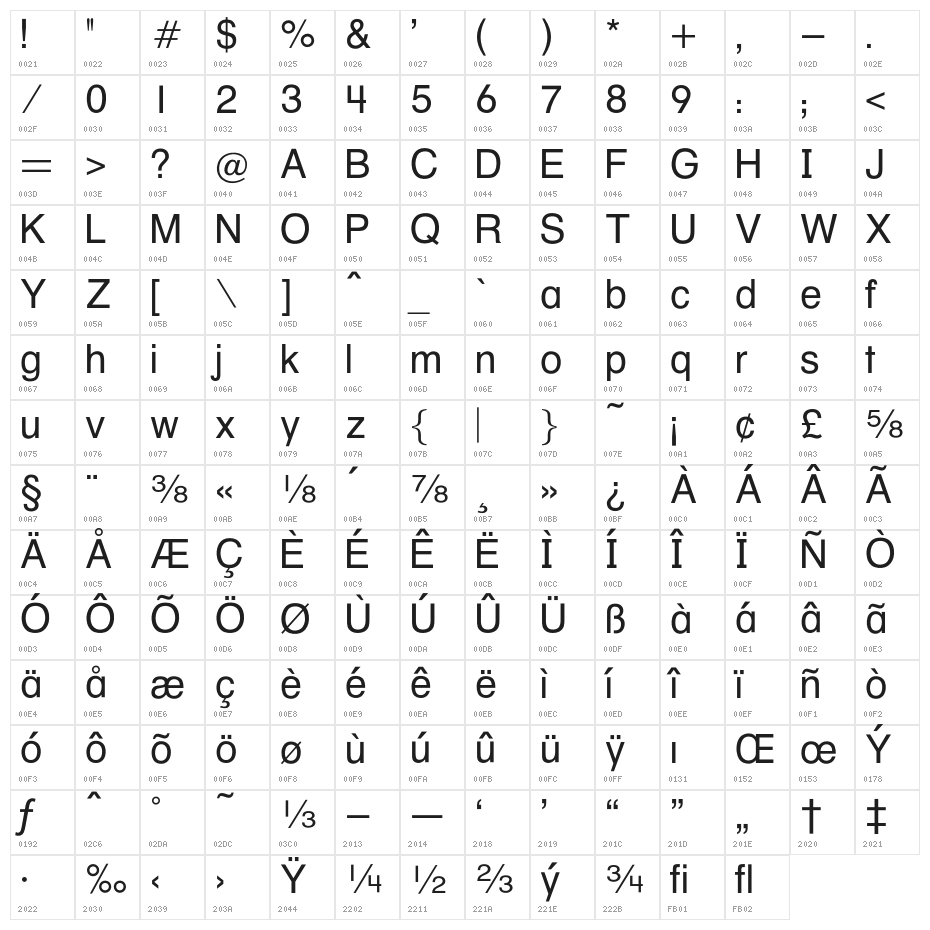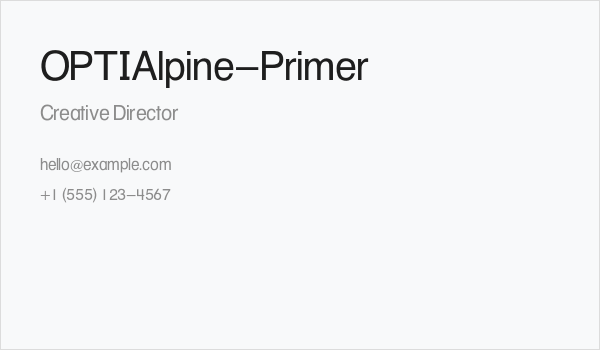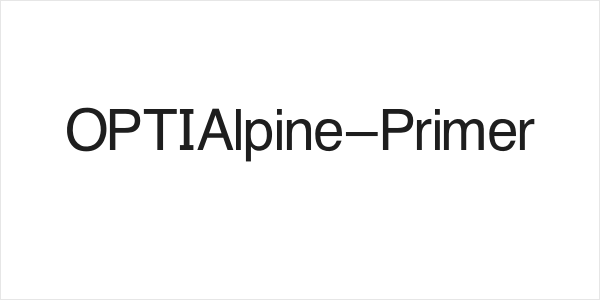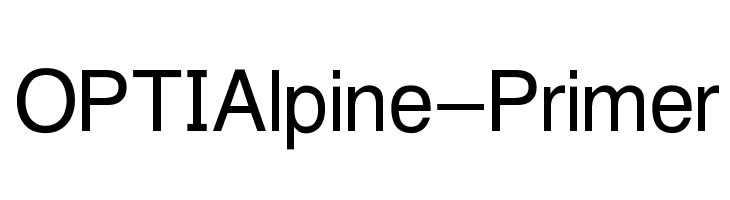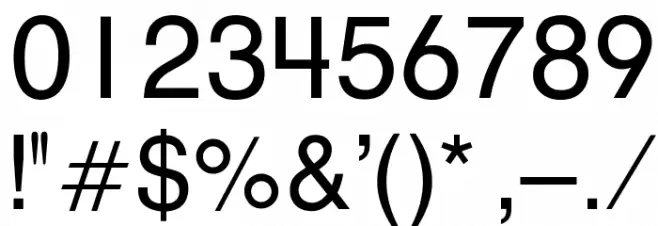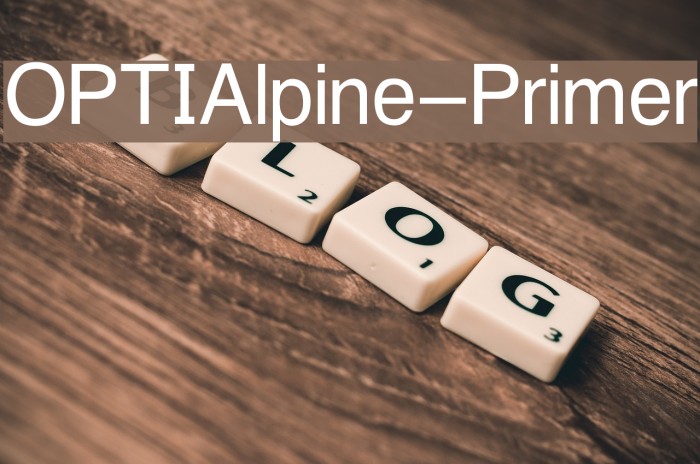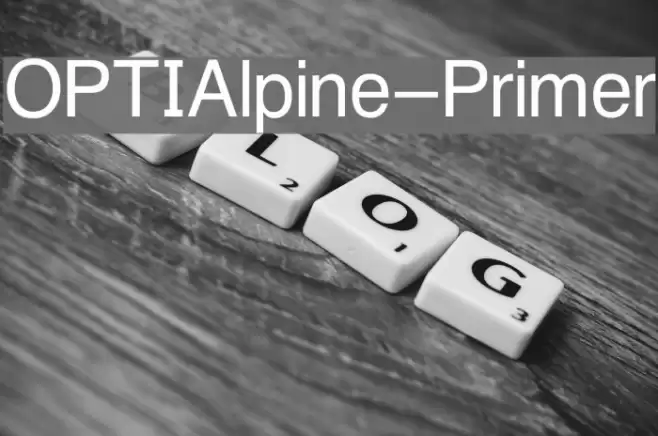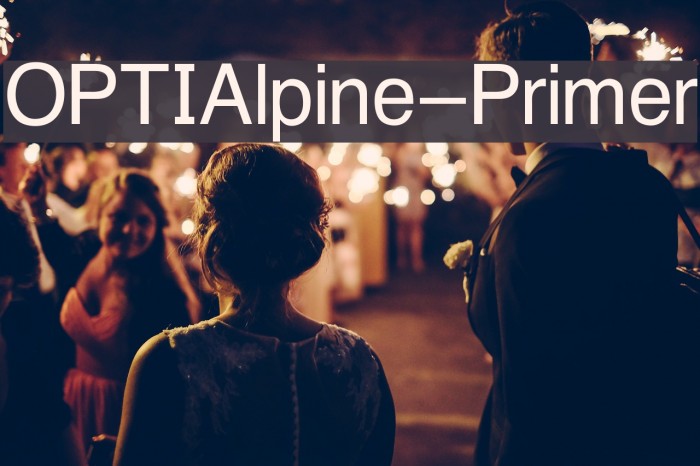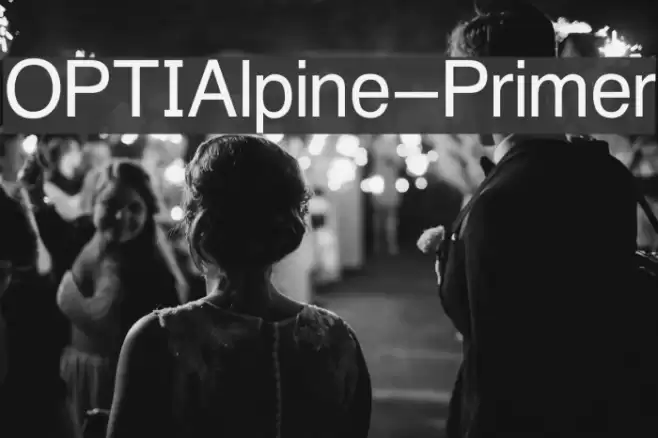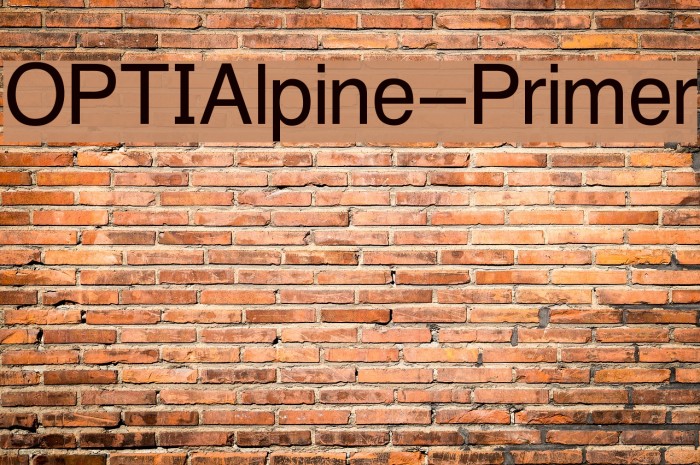
OPTIAlpine-Primer Font
OPTIAlpine-Primer Description
This font presents a clean and modern aesthetic with a geometric sans-serif style. The characters are well-proportioned, featuring uniform stroke widths that contribute to a balanced and harmonious appearance. The uppercase letters are bold and assertive, while the lowercase letters maintain a consistent flow, enhancing readability. Numerals are clear and distinct, making them suitable for various applications. The special characters are designed with precision, ensuring they integrate seamlessly with the rest of the typeface.
| Use Case | Headlines, Body text, Logos |
| Proposed Projects | Ideal for branding, advertising, web design, and editorial projects where clarity and modernity are essential. |